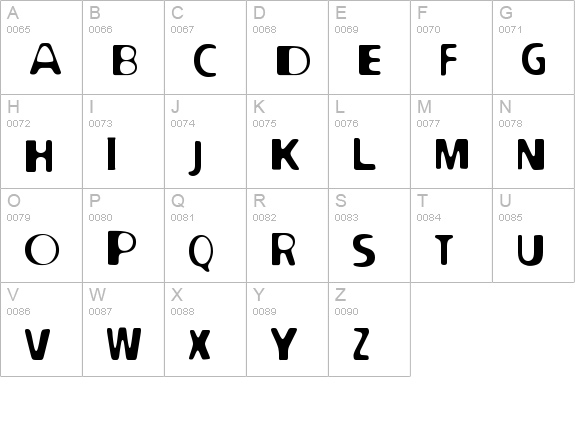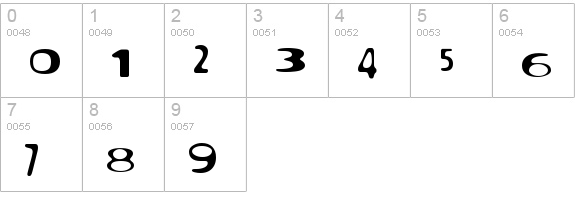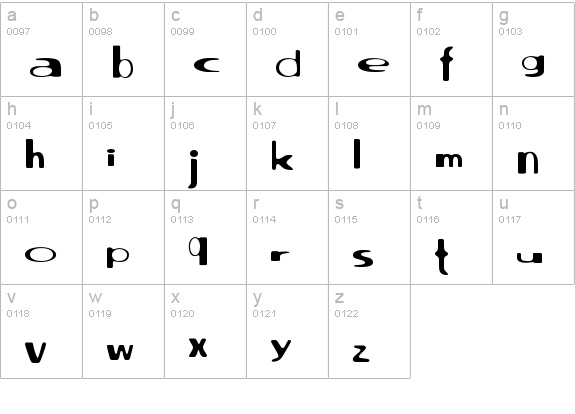
North point Font Details
North Point font is a modern and versatile typeface that combines sleek lines with a touch of elegance. With its clean and contemporary design, North Point is perfect for a wide range of design projects, from branding to editorial layouts. The font exudes a sense of sophistication and professionalism, making it ideal for creating a polished and refined visual identity. One of the best things about North Point font is that it is completely free to download. You can easily get your hands on this stylish typeface by visiting FontsMarket.com. Whether you are a designer looking to add a chic touch to your projects or a business in need of a sophisticated font for your branding, North Point is the perfect choice. Download it today and elevate your designs with this elegant and timeless font.